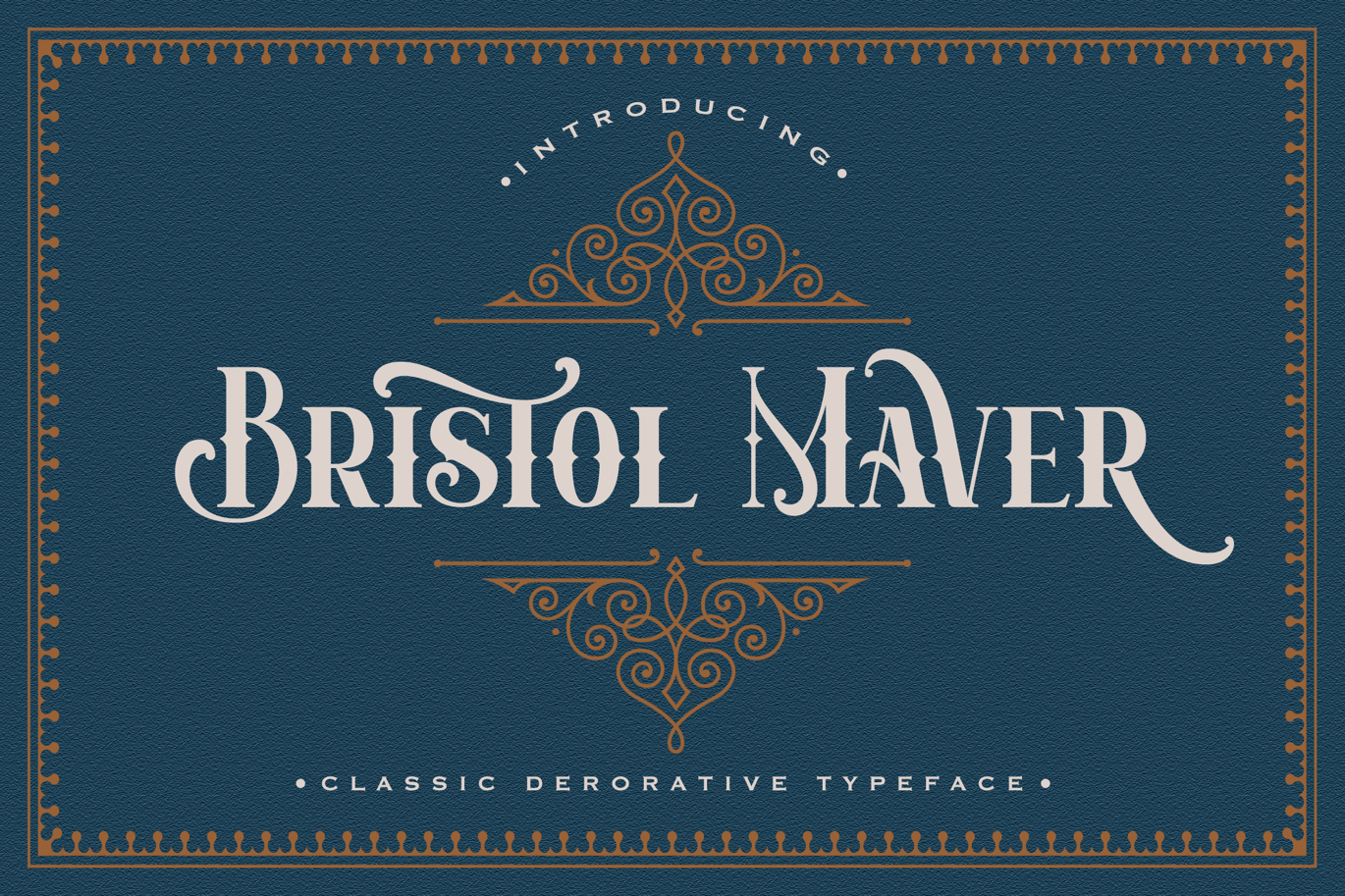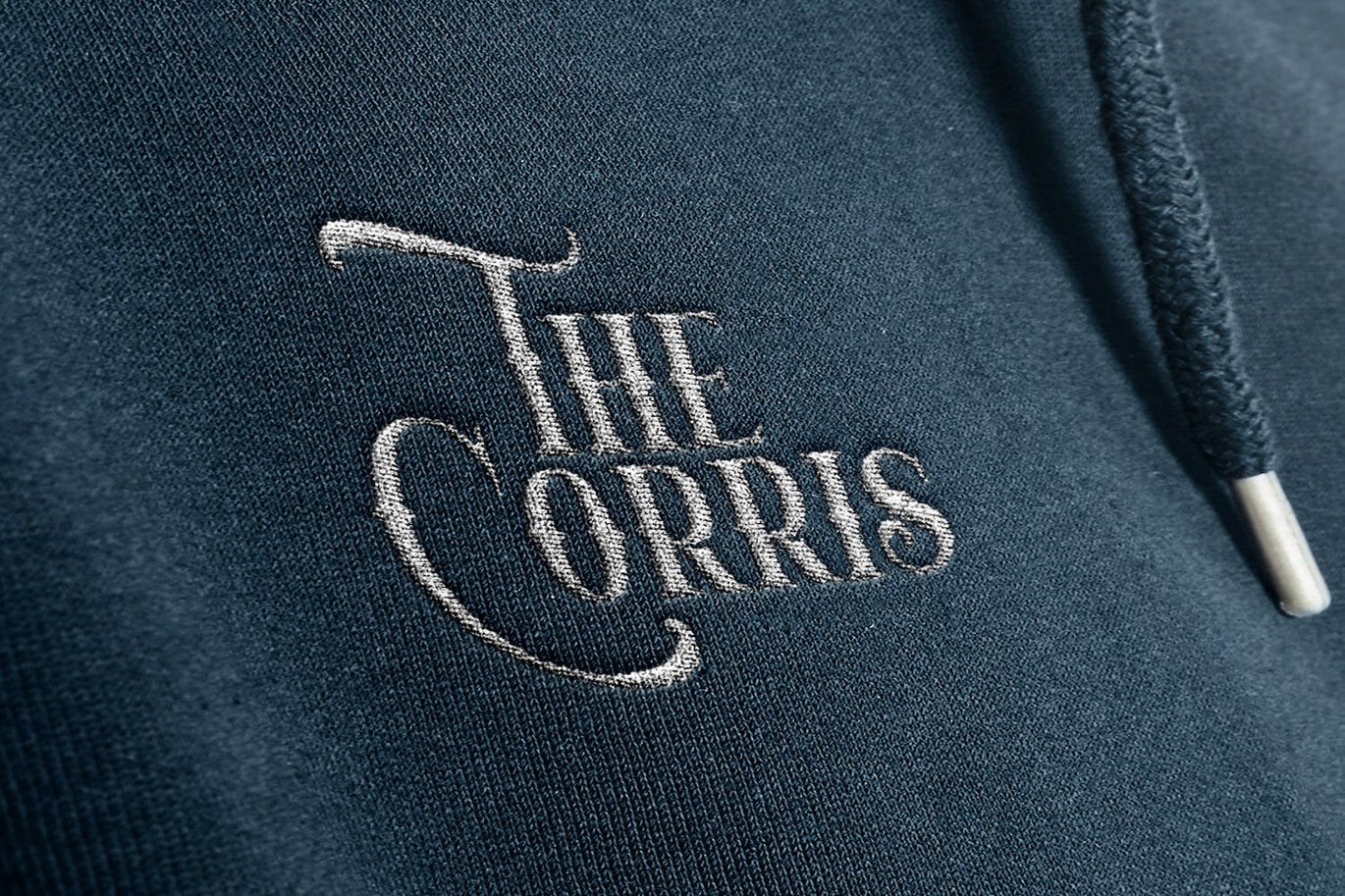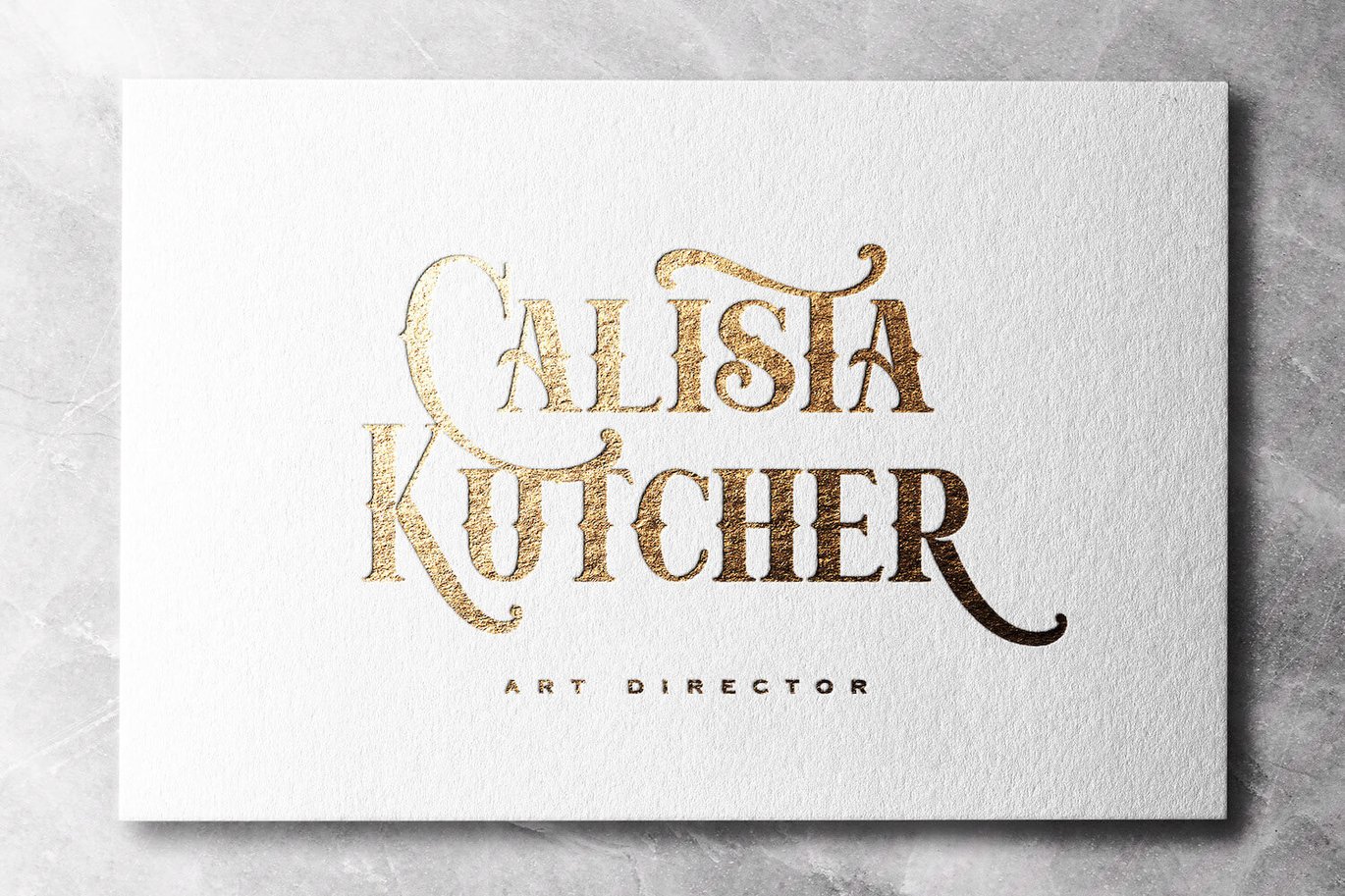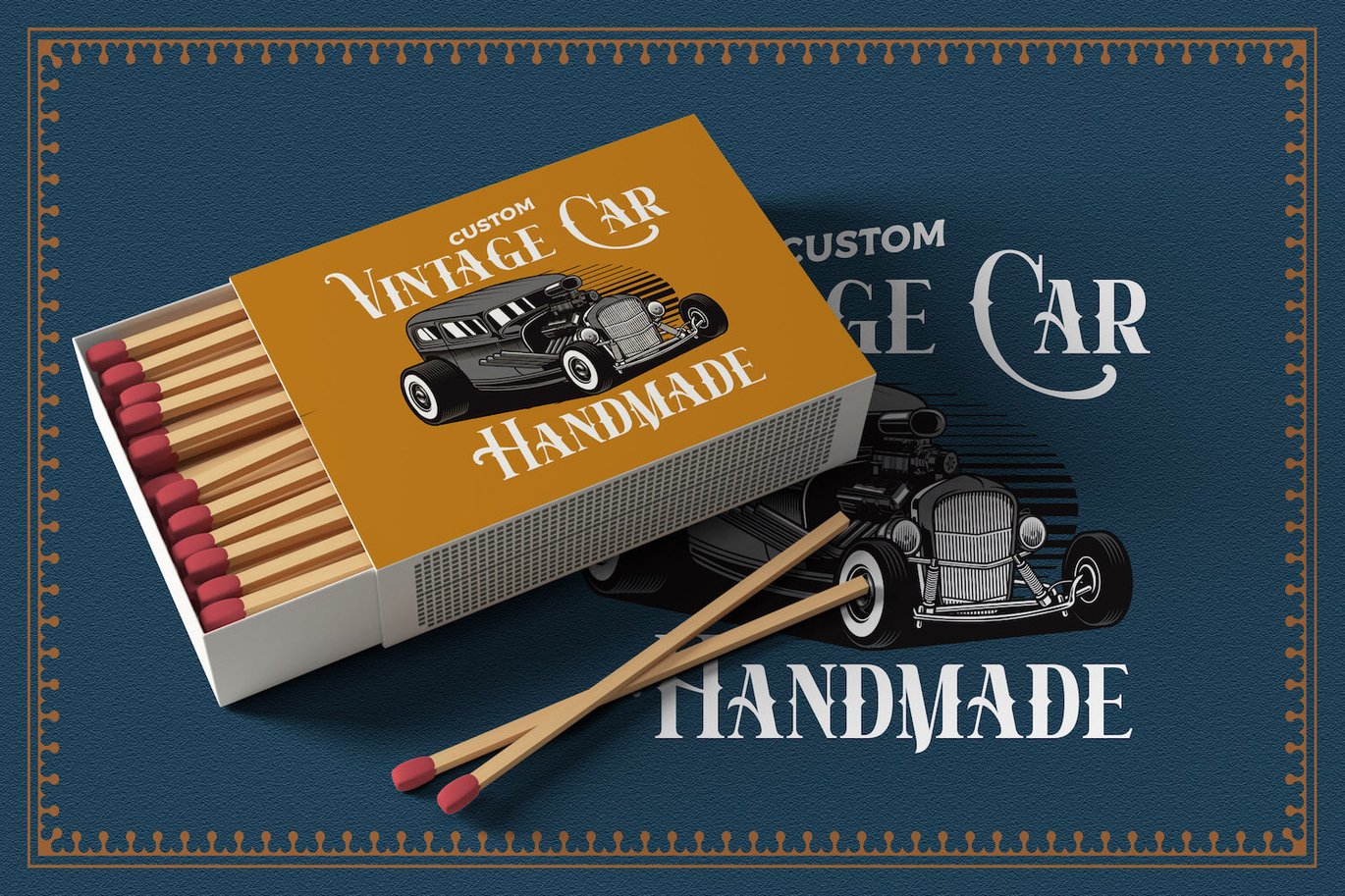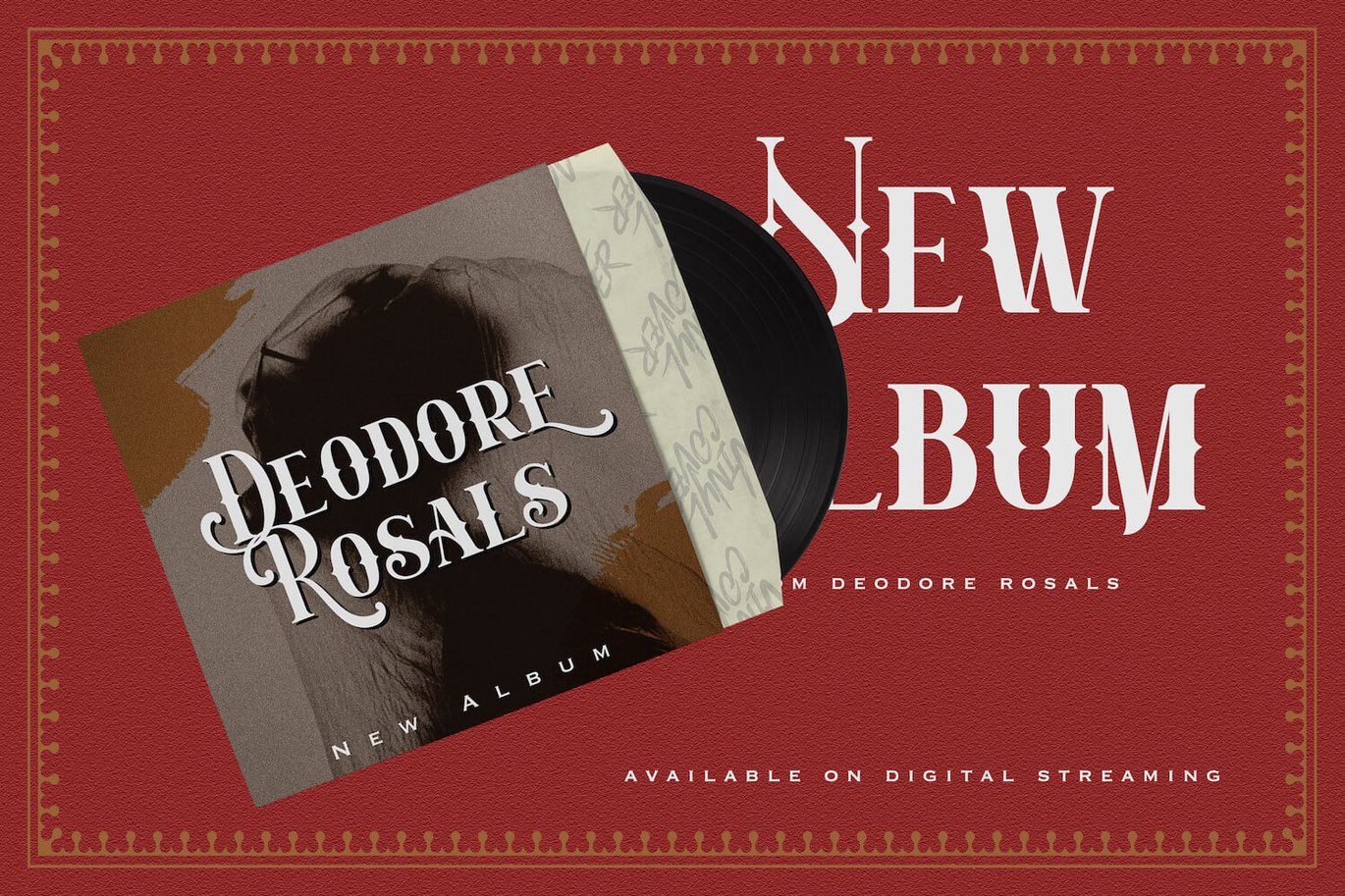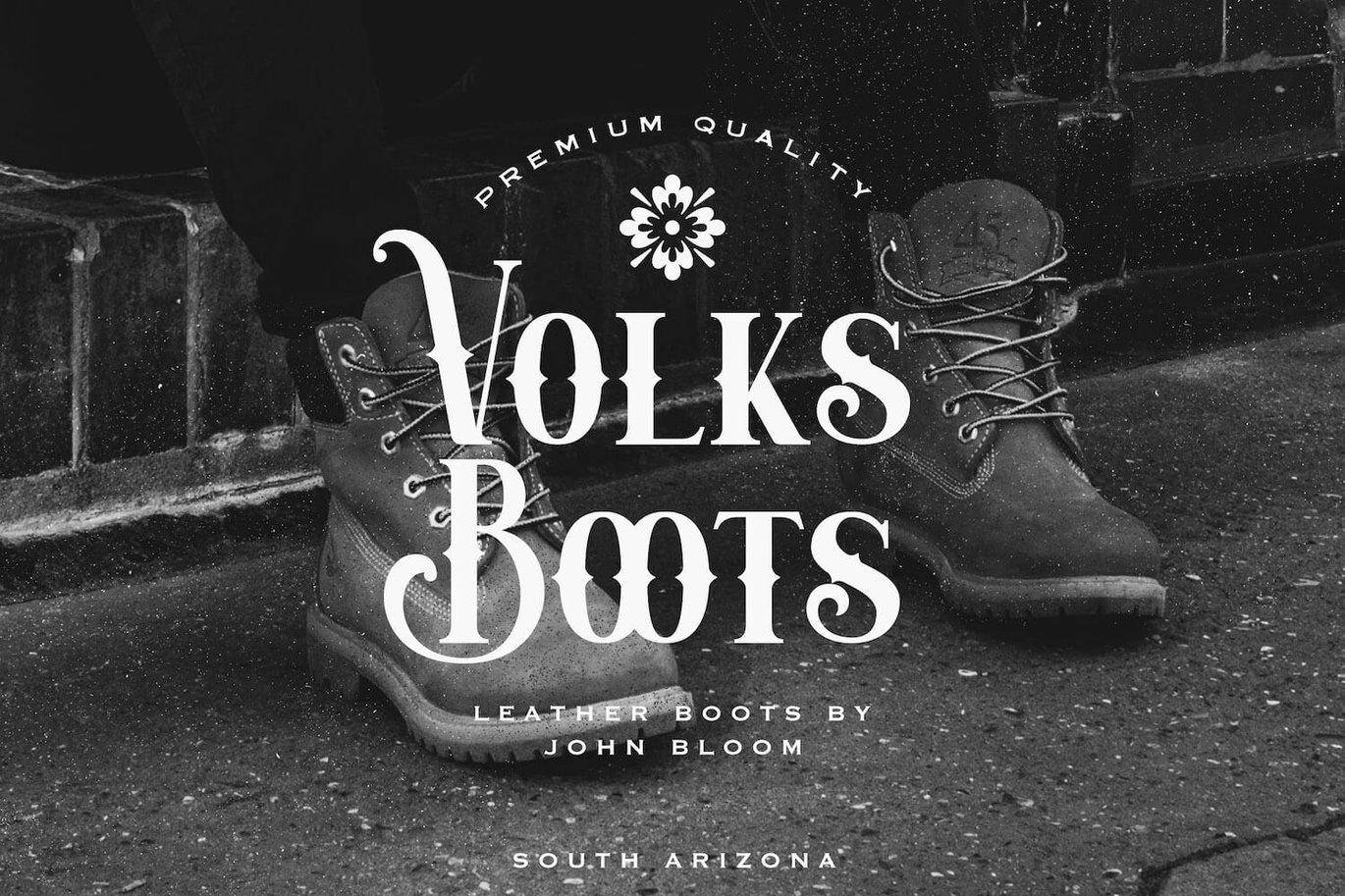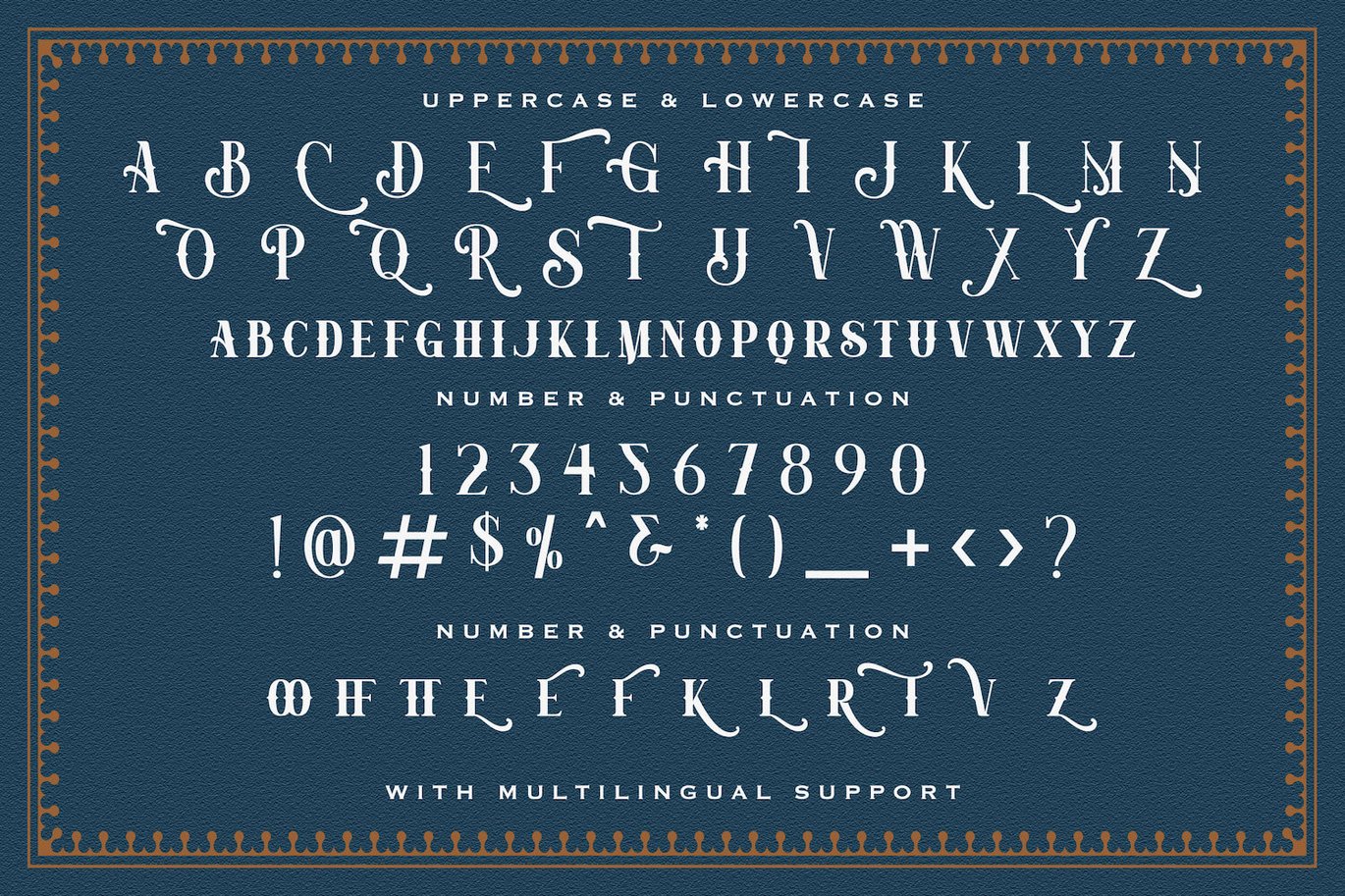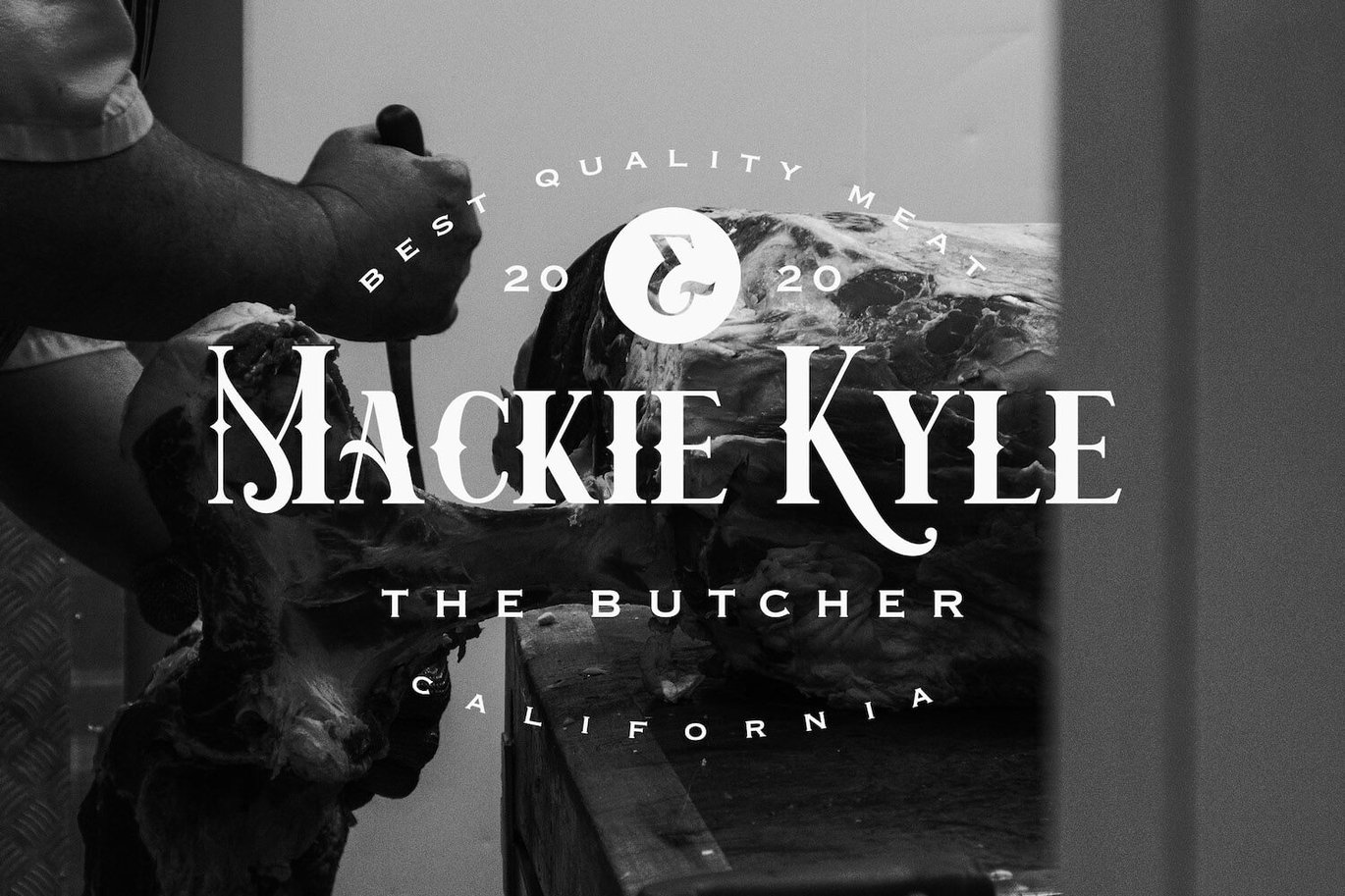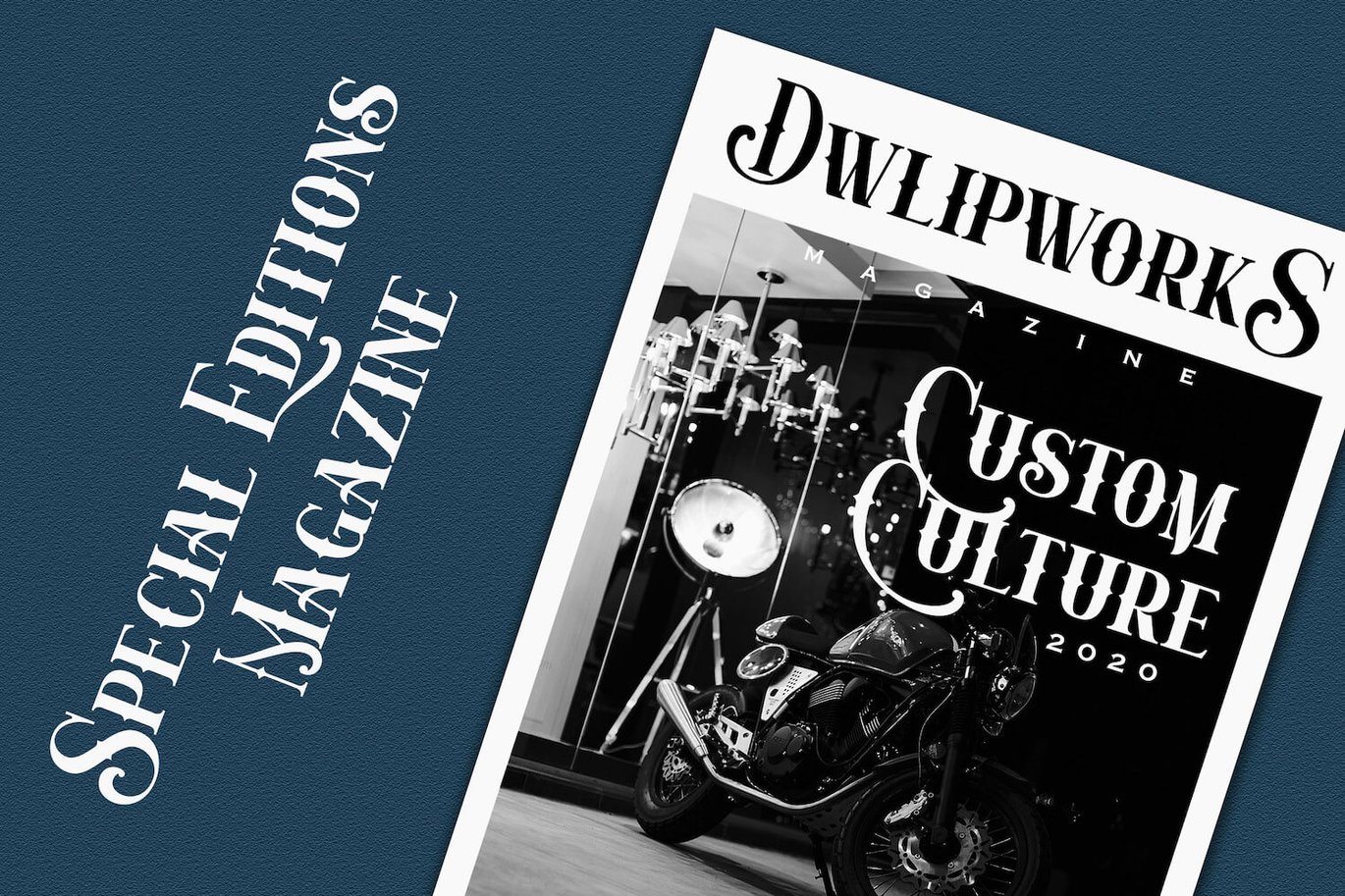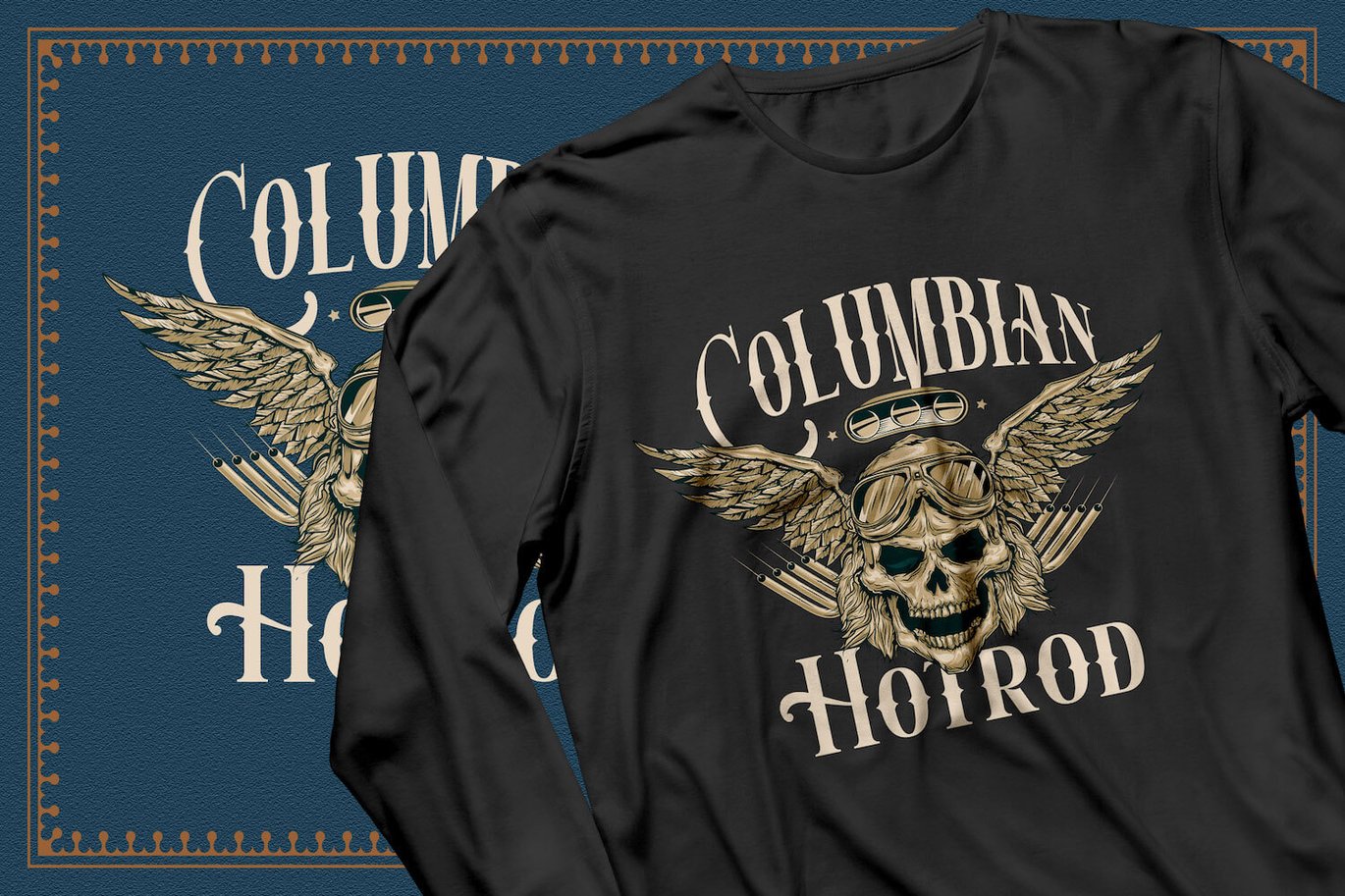
Bristol Maver – Decorative Font
Introducing Bristol Maver – Decorative Font
Bristol Maver is a unique, stylish and elegant decorative font. This typeface will look truly outstanding in a wide range of contexts.